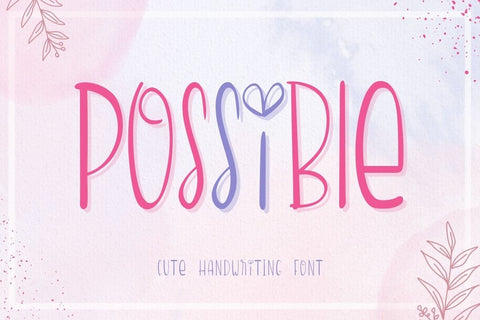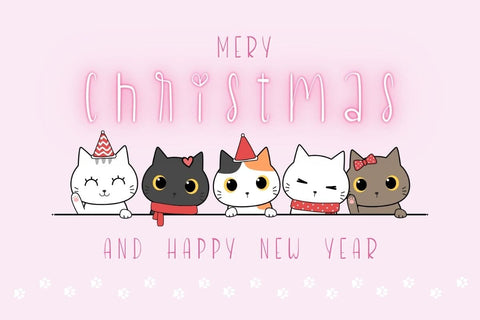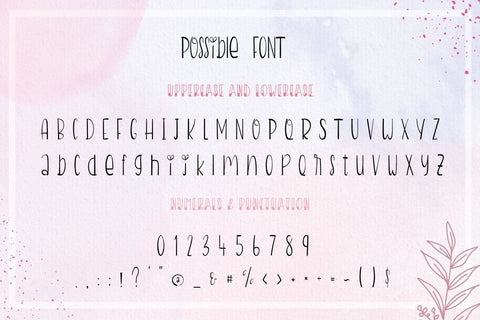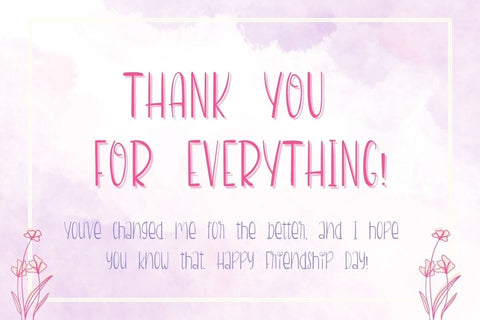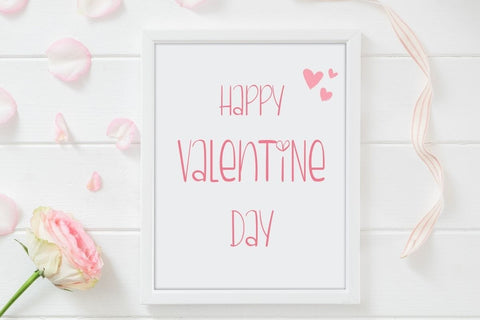
Possible - Handwriting Font
Possible is a fun handwritten font. You can use it for taking notes, writing a diary, making greeting cards, or anything you can think of! Use it now on your favorite creative projects, and they will catch everyone's attention!